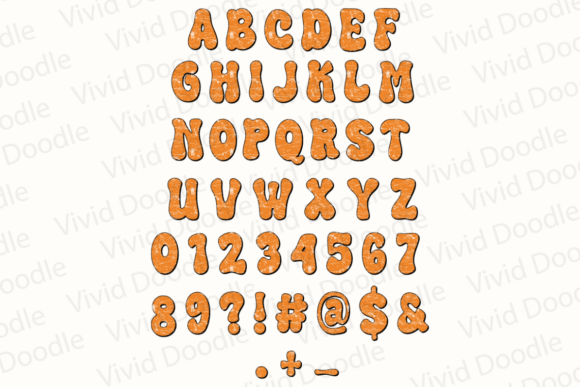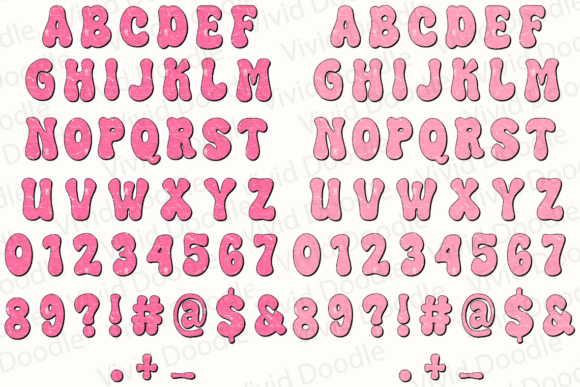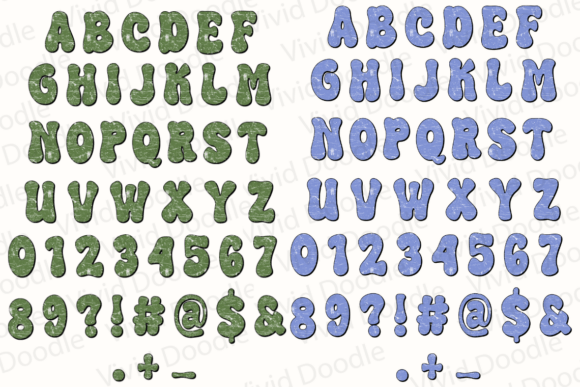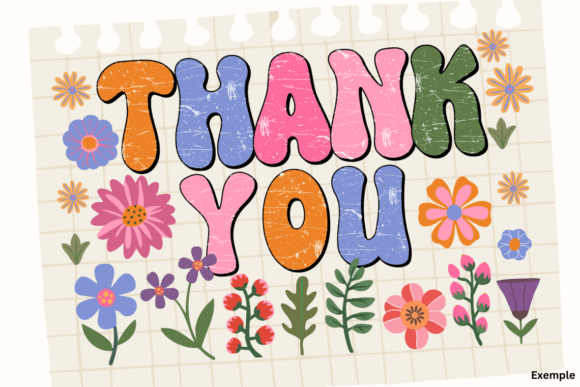
Bright Flower Doodle Font FREE Font Download
Blooming Beautiful: Unleashing the Potential of Bright Flower Doodle Font
I’ll never forget the moment I stumbled upon the perfect font for a whimsical garden-themed poster I was working on. I had tried countless typefaces, but none seemed to capture the playful, carefree essence I was aiming for. That was until I discovered Bright Flower Doodle Font – a lively and cheerful typeface that instantly brought my design to life! In this article, I’ll share my experience with this delightful font, its features, and how to make the most of it in your creative projects.
• ✨ Vibrant and playful design: Bright Flower Doodle Font is perfect for adding a touch of nature-inspired charm to your designs.
• ✅ Versatile: Suitable for various creative projects, including posters, invitations, school projects, greeting cards, and more.
While Bright Flower Doodle Font is an amazing addition to any design project, there are a few things to keep in mind:
• 🤔 Learning curve: If you’re new to color fonts or Opentype-SVG, it might take some time to get familiar with the features and how to use them.
The Story Behind Bright Flower Doodle Font
Bright Flower Doodle Font was designed with the intention of capturing the carefree spirit of a spring morning. The creator, a passionate typographer, wanted to craft a font that would bring a smile to people’s faces and inspire creativity. With its vibrant colors and playful doodles, this font is sure to brighten up any design project.
Font Name Bright Flower Doodle Font
Author VividDoodle